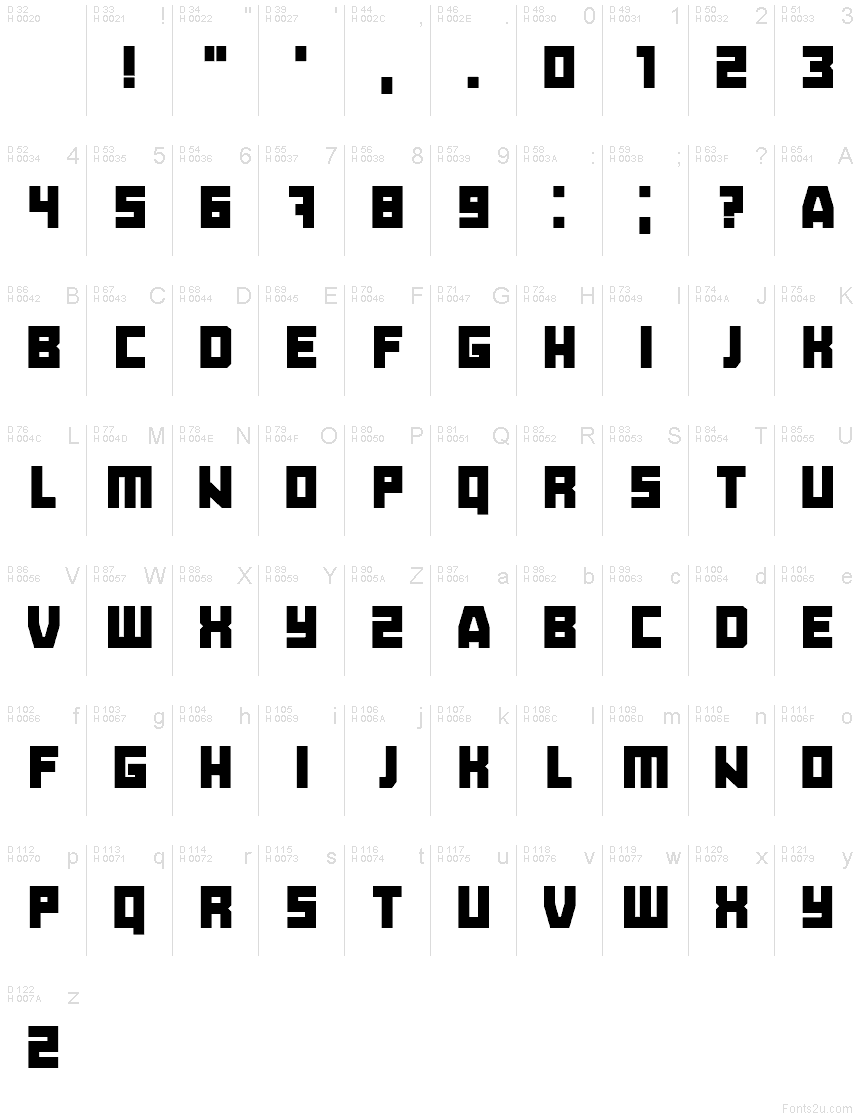
Frohburg Regular
Frohburg font is a display techno font with a bold style designed by Vladimir Nikolic. A clean and modern-looking geometric typeface with a contemporary attitude, its characters feature low contrast but remain recognizable and legible even at smaller sizes. Flexible and versatile, it hold together both complex headlines and short or long texts.